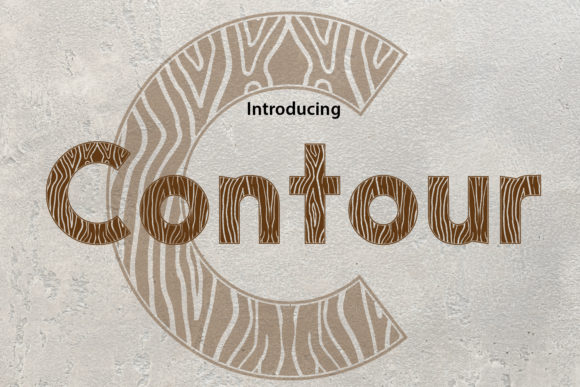
Introducing Contour Font: Unleash the Power of Nature-Inspired Typography
Immerse yourself in a realm of natural beauty with Contour Font, the captivating display font that embodies the rugged spirit of the wild. Its bold, thick letters exude a raw and untamed charm, evoking the majestic landscapes of forests, mountains, and beyond.
Contour Font is a symphony of nature's elements, perfectly crafted for designs that demand attention. Whether you're creating compelling headlines, enchanting logos, or eye-catching social media graphics, this font will ignite your imagination and leave a lasting impression.